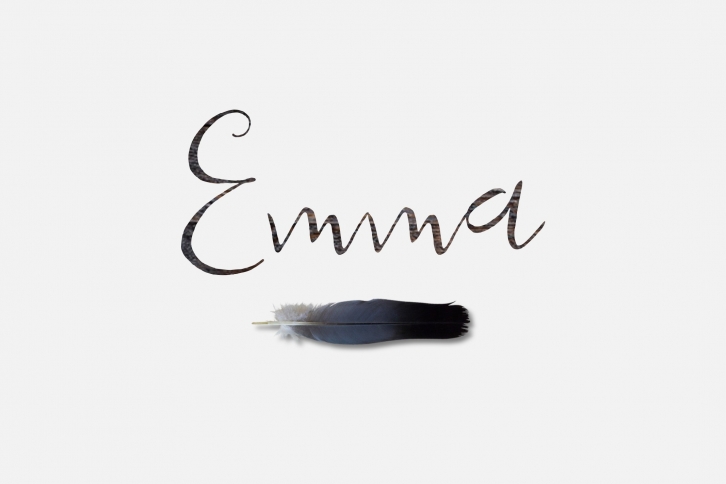
Hello Emma is a gorgeous font that was realeased on April 6, 2017. The font can be used in many style contexts and design environments. Perfect for invitations, magazines, websites, logos, and more! It was designed by Graphicfresh and the file size is 18.73 MB. Thanks for checking out this font!